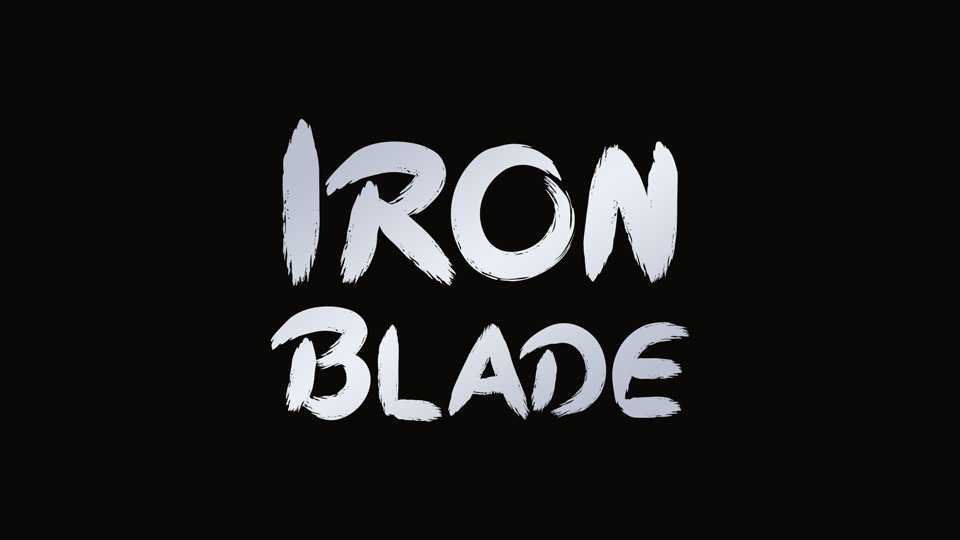
Download Iron Blade font, a bold hand painted brush script with a natural texture. Iron Blade font works perfectly for posters, flyers, baners, social media, merchandise, packaging and more.
Designer: Sushi Hue Design